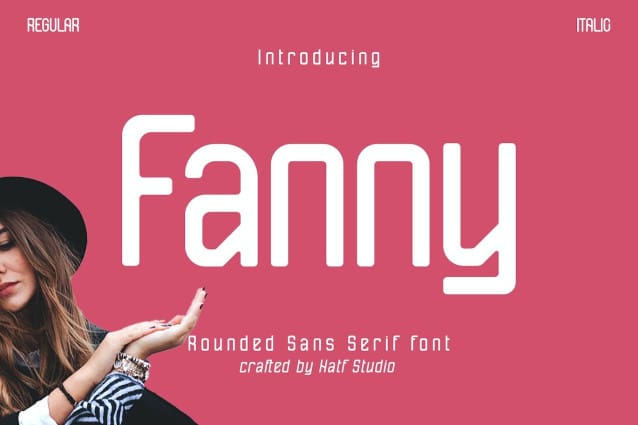
Fanny Font
Fanny Font is a round sans serif font. Fanny Font has two variations, regular and italic. This font is characterized by smooth, curved edges and the absence of serifs (small protruding lines at the end of strokes). This font has a modern and user-friendly appearance, making it popular for various design applications. Rounded edges give a softer, more approachable feel than sharp edges.
The gentle curves of a rounded sans serif font give it a warm, happy and versatile feel. They are often chosen for projects that aim to create a contemporary, friendly or informal atmosphere. Additionally, its simplicity and readability make it suitable for many purposes, including branding, web design, printed materials, and user interfaces.
These fonts are known for their ability to blend seamlessly into a variety of design contexts while maintaining a clean, modern aesthetic. Its rounded shape evokes a feeling of harmony and balance, making it a popular choice for projects looking to strike a balance between professionalism and accessibility. Whether used in titles, body text or as part of a Logo, rounded Sans Serif Fonts can bring a touch of modernity and friendliness to any design.